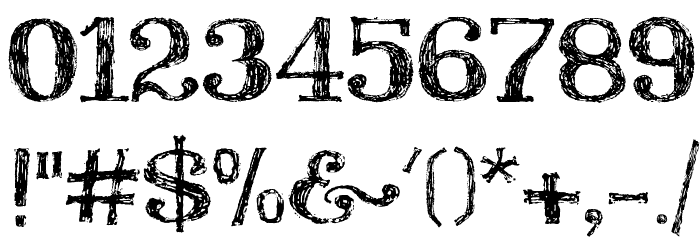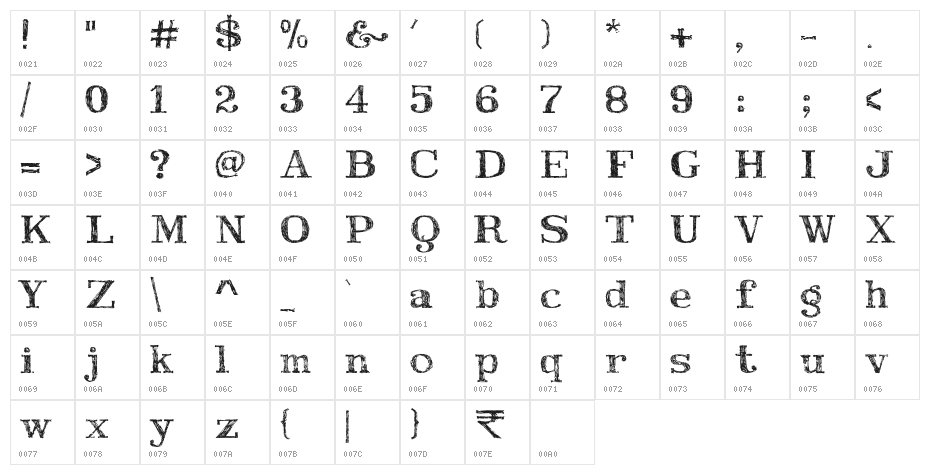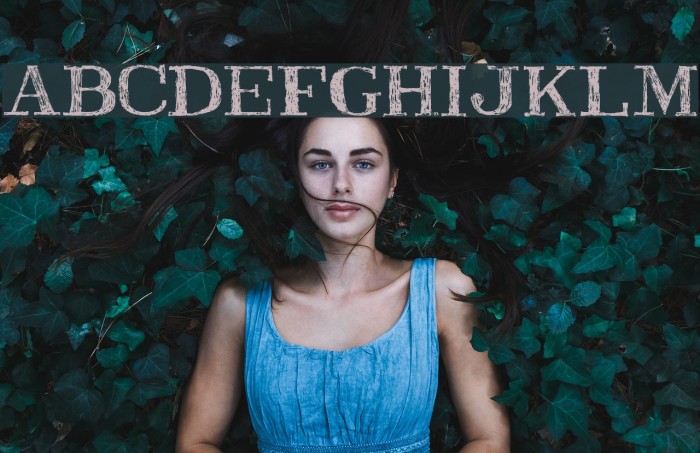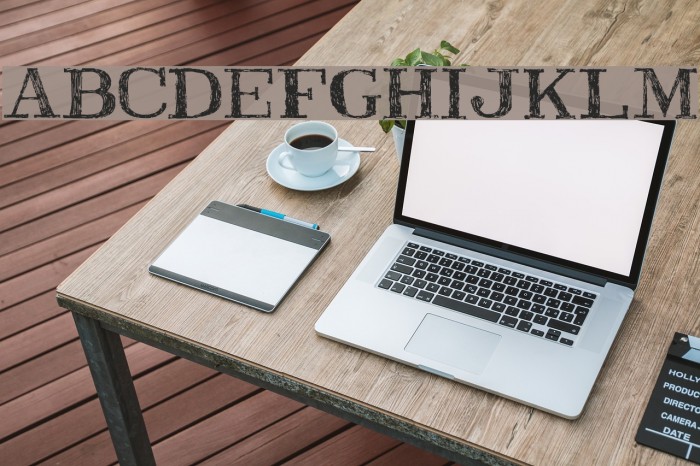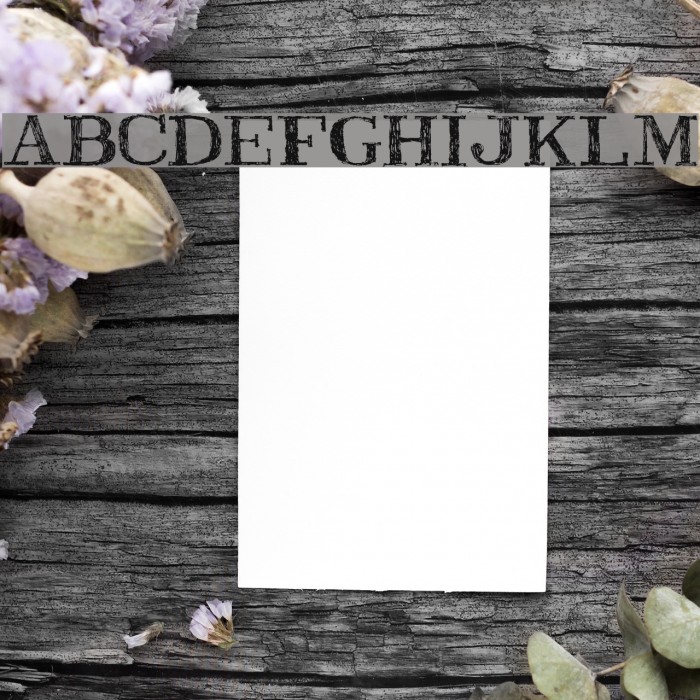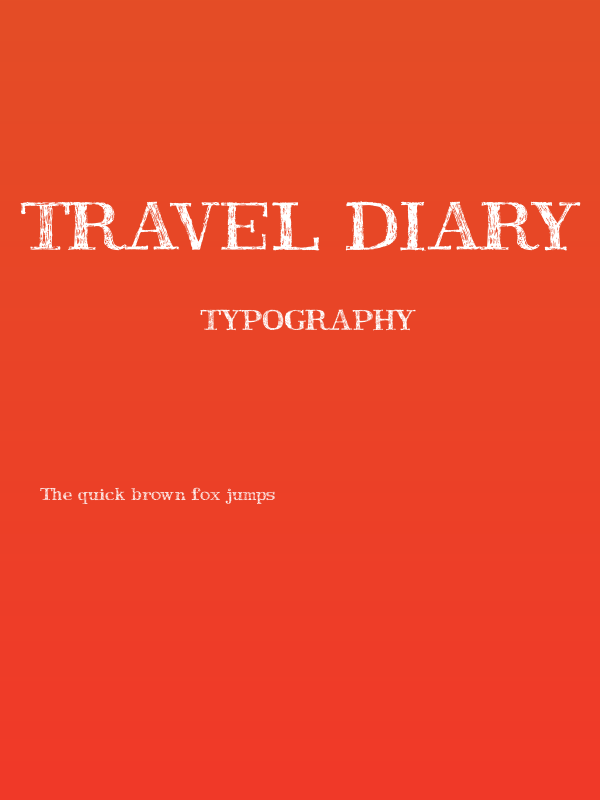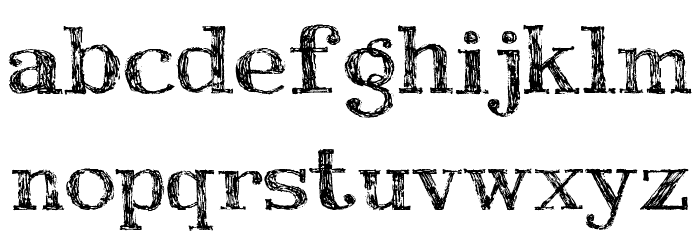
Travel Diary Font
Travel Diary Description
This font features a distressed, textured appearance that gives it a rugged, vintage feel. The uppercase and lowercase letters are bold and have a rough, hand-drawn quality, making them stand out with a unique character. The numerals and special characters maintain this textured style, adding to the overall cohesive look. The font's design is reminiscent of old typewriter or letterpress prints, with an artistic flair that suggests a sense of adventure and nostalgia. Its irregular edges and varying stroke thicknesses contribute to its dynamic and eye-catching nature.
| Proposed Projects | Ideal for travel blogs, adventure-themed posters, vintage-style branding, and artistic projects. |